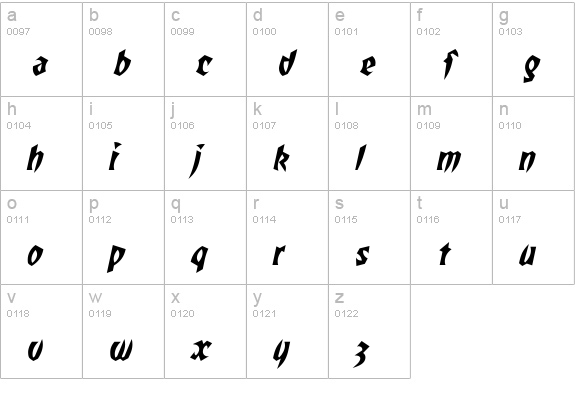
Transylvania Italic Font Details
Transylvania Italic is a distinctive, italic variant in the Transylvania typeface family \xE2\x80\x94 well suited to design and typography projects.
Transylvania Italic font is a stunning addition to any designer's toolkit. This font exudes elegance and sophistication, with its delicate and stylish letterforms that have a subtle yet impactful slant. It effortlessly combines classic charm with a modern twist, making it perfect for a wide range of design projects. Its unique and intricate details make Transylvania Italic font a true standout. The elegant curves and smooth transitions between letters create a smooth and harmonious flow, adding a touch of sophistication to any design. Whether used in headlines, logos, invitations, or any other creative endeavor, this font is sure to make a lasting impression. One of the best features of Transylvania Italic font is that it is freely available to download at FontsMarket.com. This means that you can easily access and use this remarkable font for your projects without any restrictions. Whether you're a professional designer or a hobbyist, the ease of access to this font enhances its appeal and usability. With Transylvania Italic font, you can effortlessly bring your design visions to life. Its versatility allows it to be paired with various other fonts, creating unique and captivating typography combinations. The subtle slant and unique letterforms add a touch of personality to your designs, capturing attention and leaving a lasting impact on your audience. In conclusion, Transylvania Italic font is a must-have for any designer looking to add a touch of elegance and sophistication to their creations. Its freely available download at FontsMarket.com ensures that you can easily incorporate this font into your design projects without any hassle. So why wait? Download Transylvania Italic font today and elevate your designs to new heights.